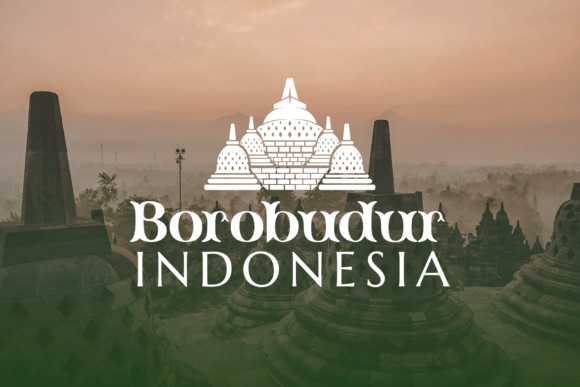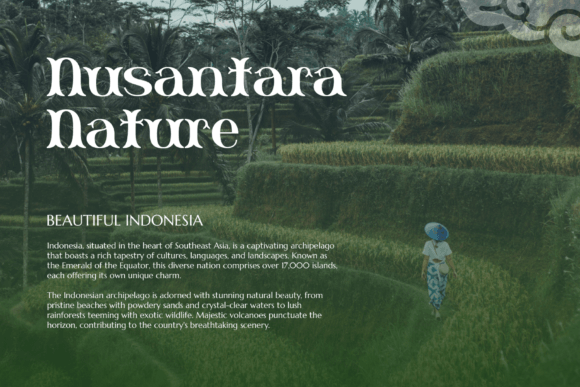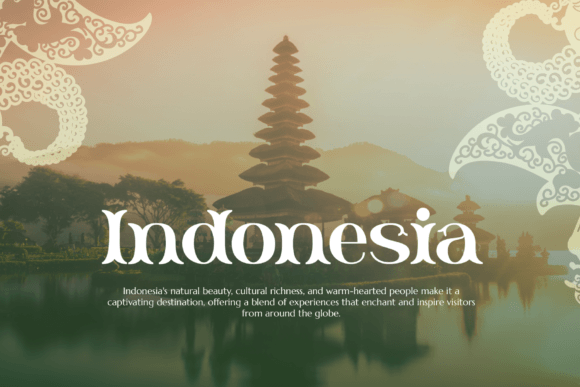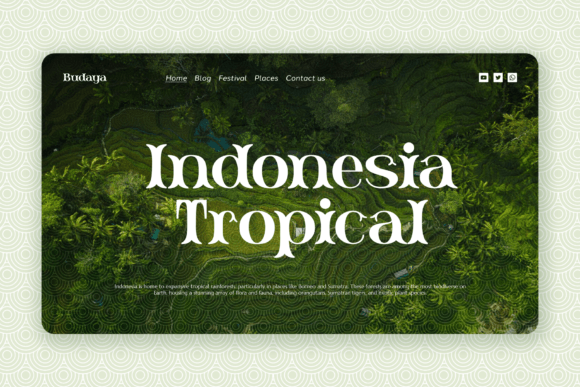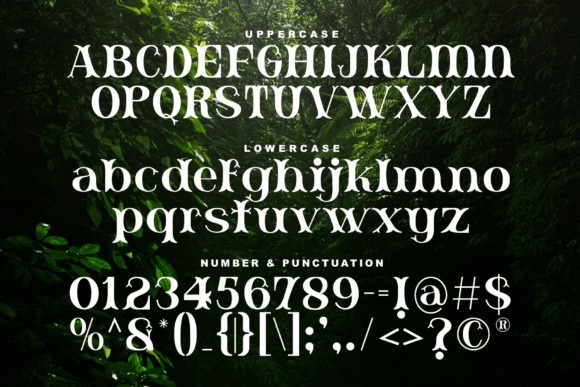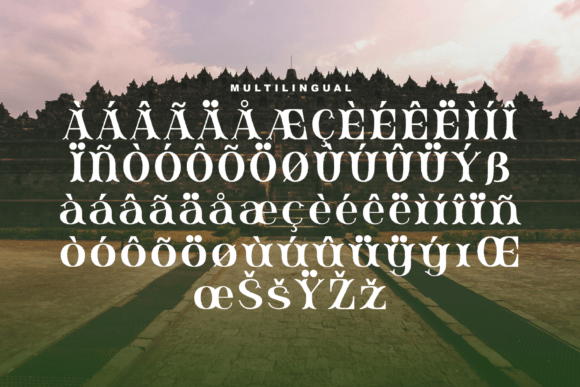
Embracing the Beauty of Heritage: Introducing Budaya Font
Have you ever stumbled upon an old book or manuscript and felt a deep connection to the stories and cultures it represents? That’s exactly the kind of creative spark that inspired us to create the Budaya Font – a unique typeface that weaves together the essence of traditional cultures from around the world.
Budaya Font is more than just a font; it’s a journey through time and space, where the classic and the modern blend seamlessly together. With its intricate letter shapes and visual elements, this font is perfect for designers looking to add a touch of heritage and sophistication to their projects.
Whether you’re working on a branding project, a book cover, or a website, Budaya Font is the perfect choice for those who want to pay homage to the traditions of the past while still maintaining a modern and sleek look.
Budaya Font Key Features
- Font Family: A unique and customizable font family designed to represent the rich cultural heritage of Indonesia.
- Character Set: Supports a wide range of characters, including Latin, Indonesian, and other languages, making it a versatile font for multilingual designs.
- Unique Characteristics: The Budaya Font features a unique blend of traditional and modern elements, with intricate details and ornaments that reflect the rich cultural heritage of Indonesia.
Budaya Font Review
As a designer, I’m always on the lookout for unique and captivating fonts that can elevate my designs. Budaya Font is one such font that caught my attention, and I’m excited to share my honest review.
- ✨ Unique aesthetic: Budaya Font has a distinct and refreshing look that sets it apart from other fonts.
- ✨ Good for cultural or spiritual designs: The font’s design is heavily influenced by traditional Southeast Asian culture, making it perfect for projects that require a cultural or spiritual touch.
- ✨ Wide range of weights: Budaya Font comes with a variety of weights, from light to bold, allowing for versatility in design.
- ⚠️ Limited legibility: At certain font sizes, Budaya Font can become difficult to read, especially for longer blocks of text.
- ⚠️ Not suitable for body text: While Budaya Font is great for headings and titles, it’s not the best choice for body text due to its unique style.
Overall, I think Budaya Font is a great addition to any designer’s toolkit, especially for projects that require a cultural or spiritual touch. While it has its limitations, it’s a unique and captivating font that can add an extra layer of depth to your designs.
Use the Budaya font for creating visually appealing headings, titles, and captions in your Canva designs.
Use the Budaya font for creating custom typography in your Adobe designs, such as logos, posters, and brochures.
Use the Budaya font for creating engaging presentations, reports, and documents with a unique and eye-catching typography.
Common Use Cases for Budaya Font
Use the Budaya font for creating creative headings, titles, and captions in social media posts, blog articles, and website content.
Apply the Budaya font to your branding materials, such as business cards, brochures, and posters, to create a unique and memorable brand identity.